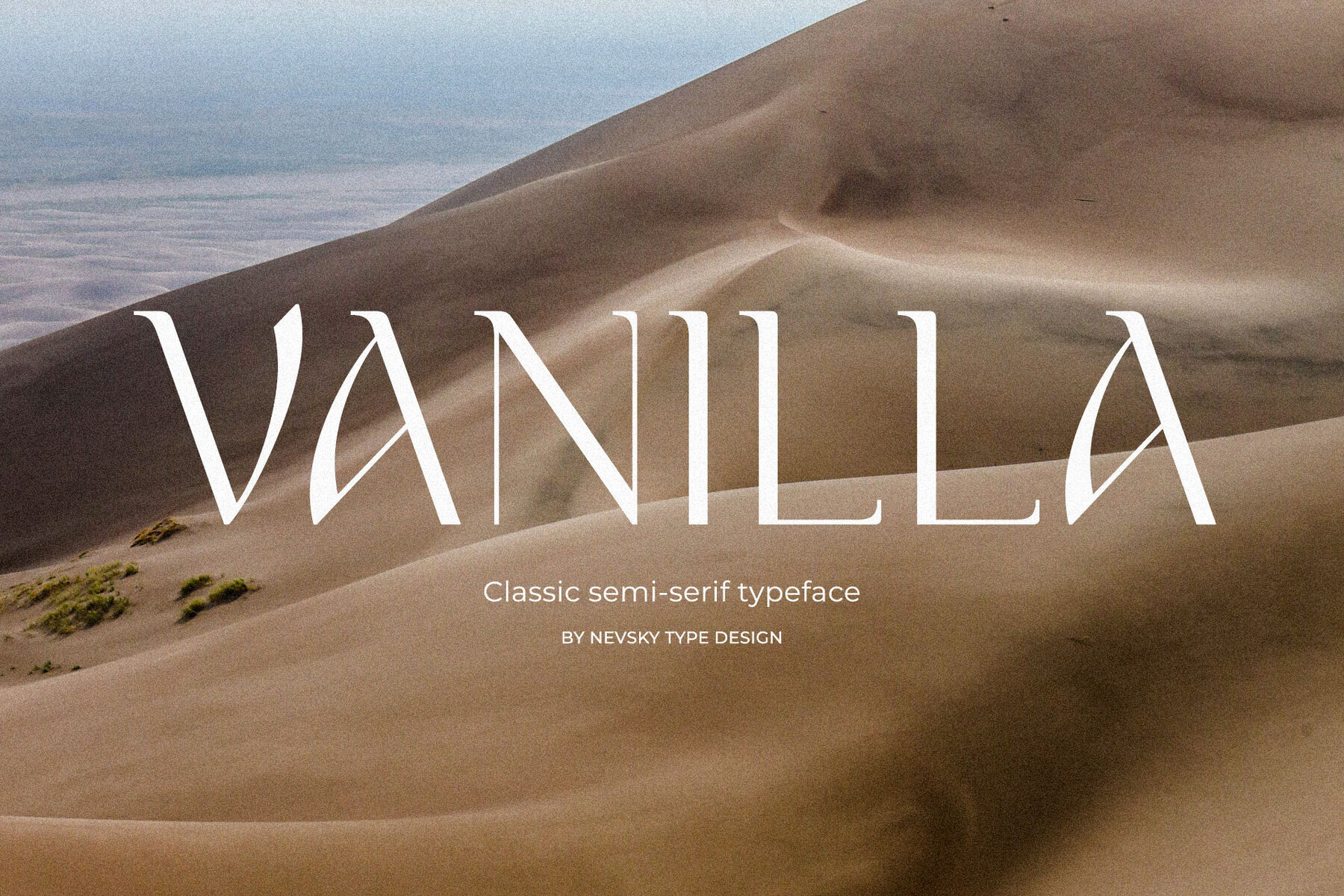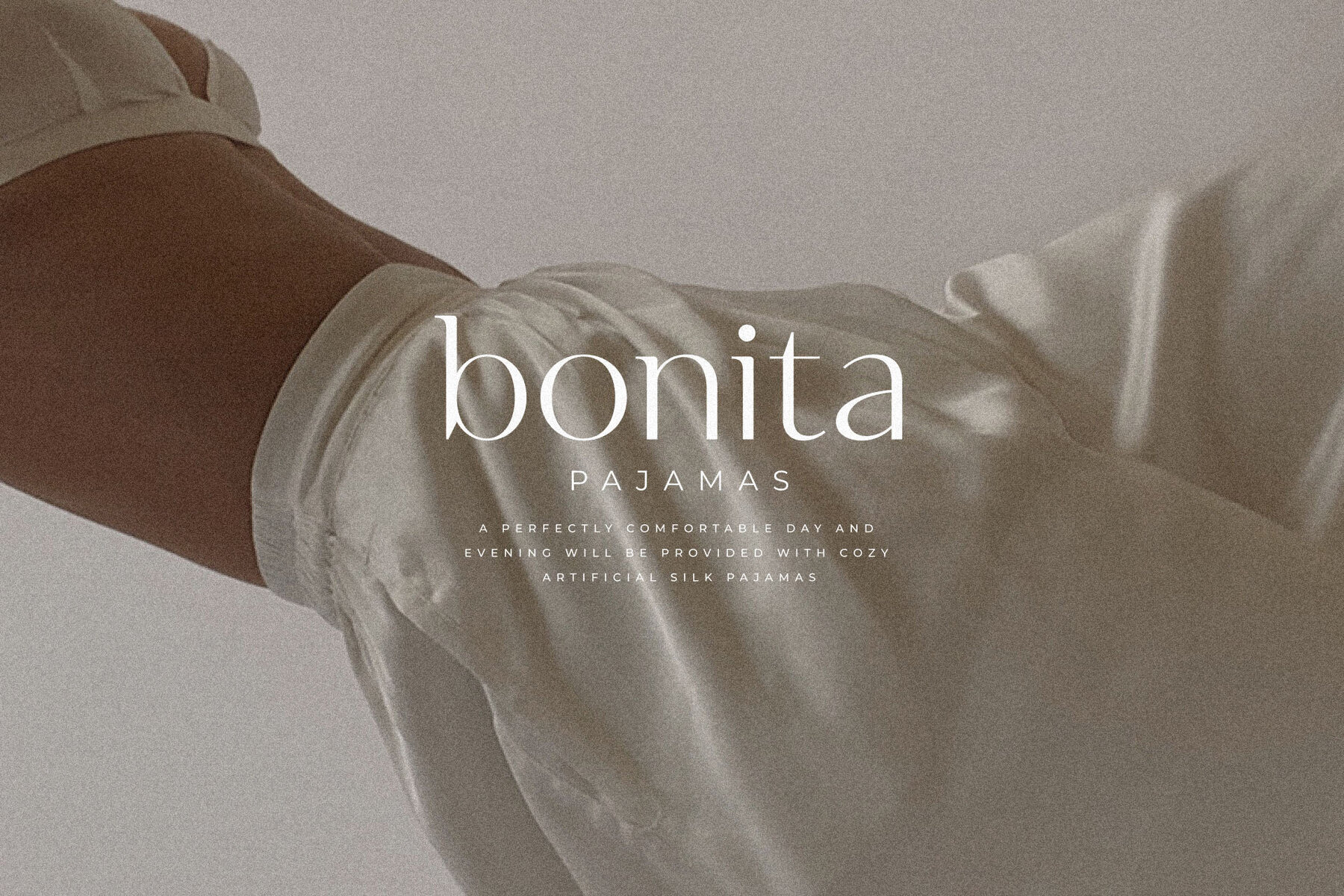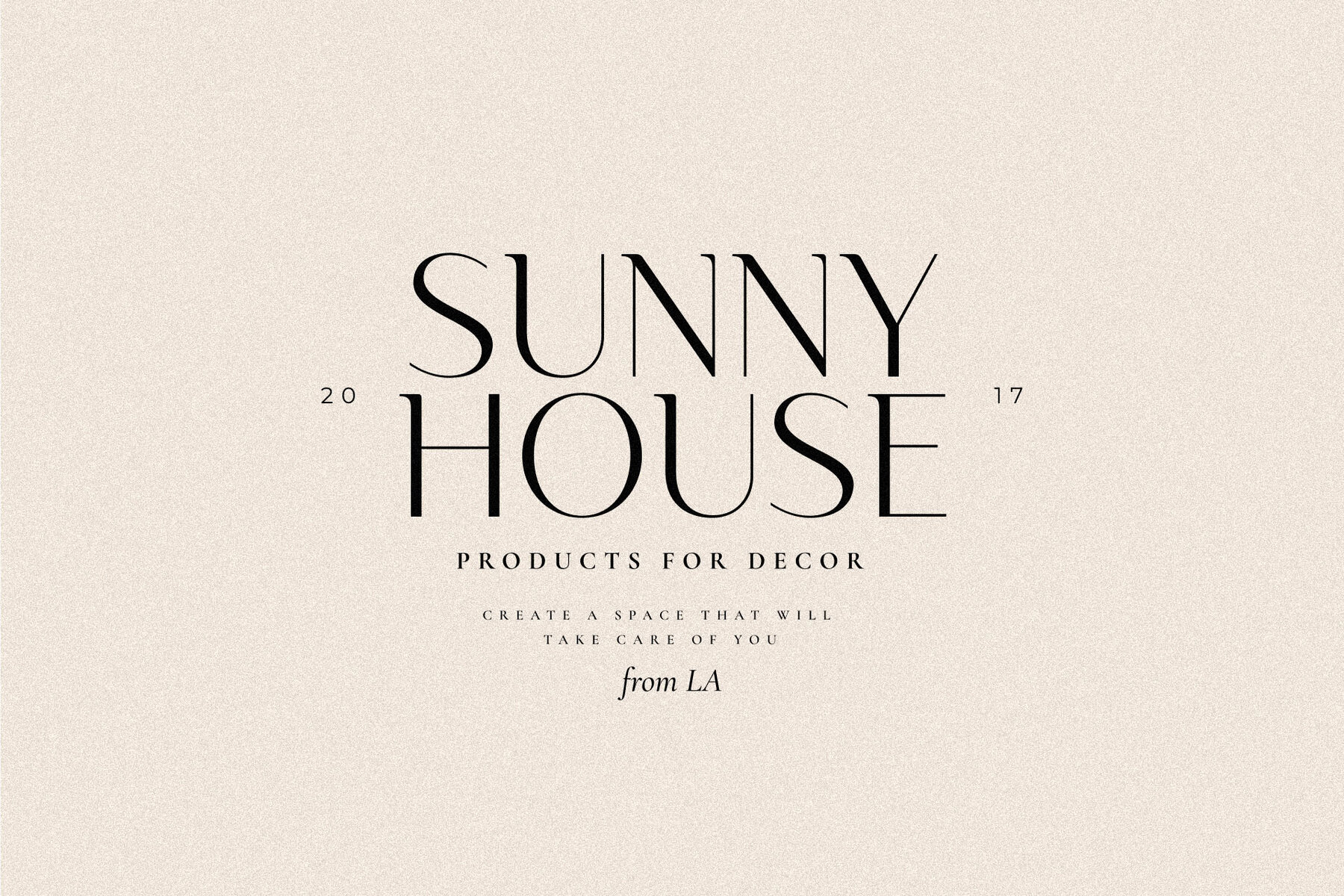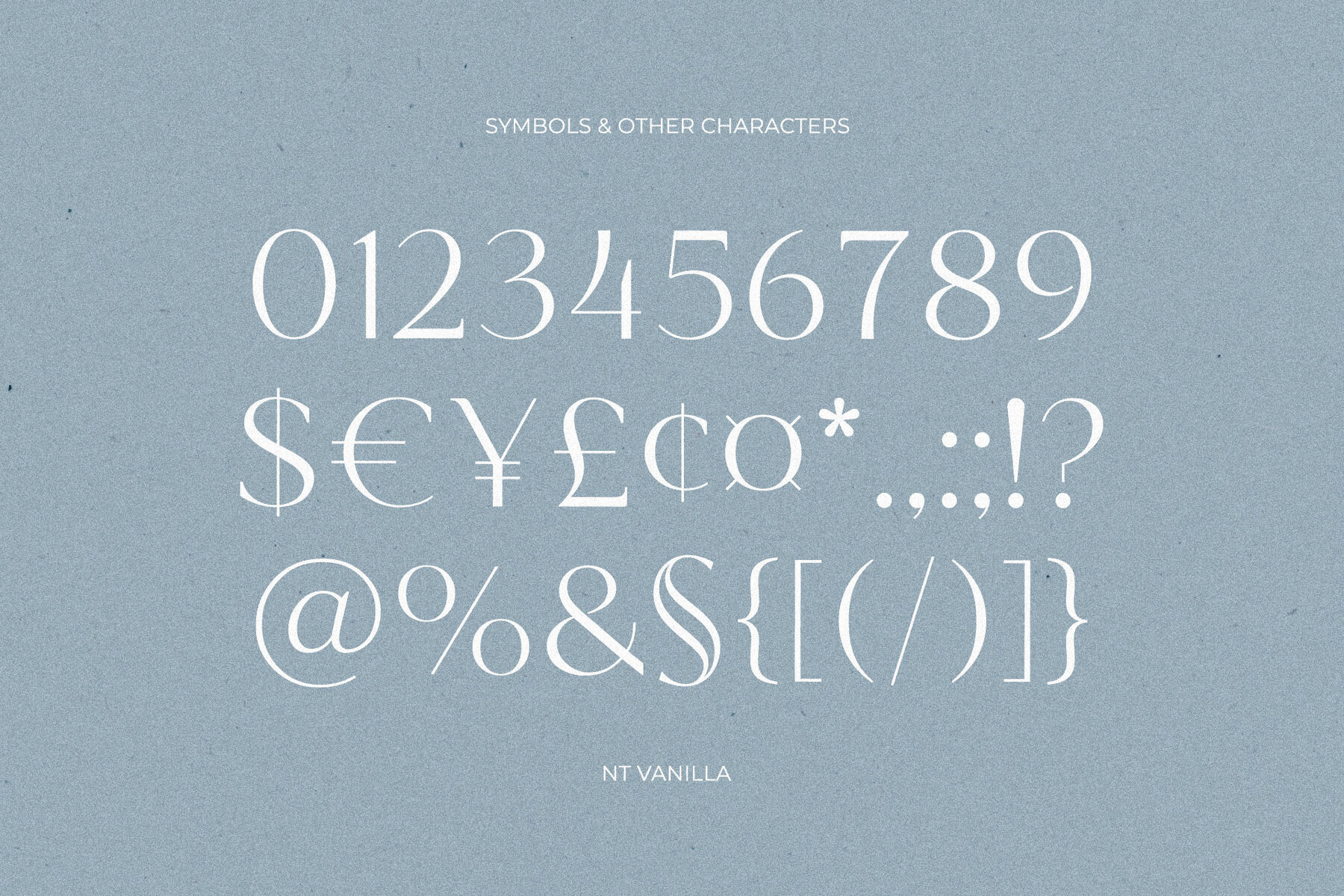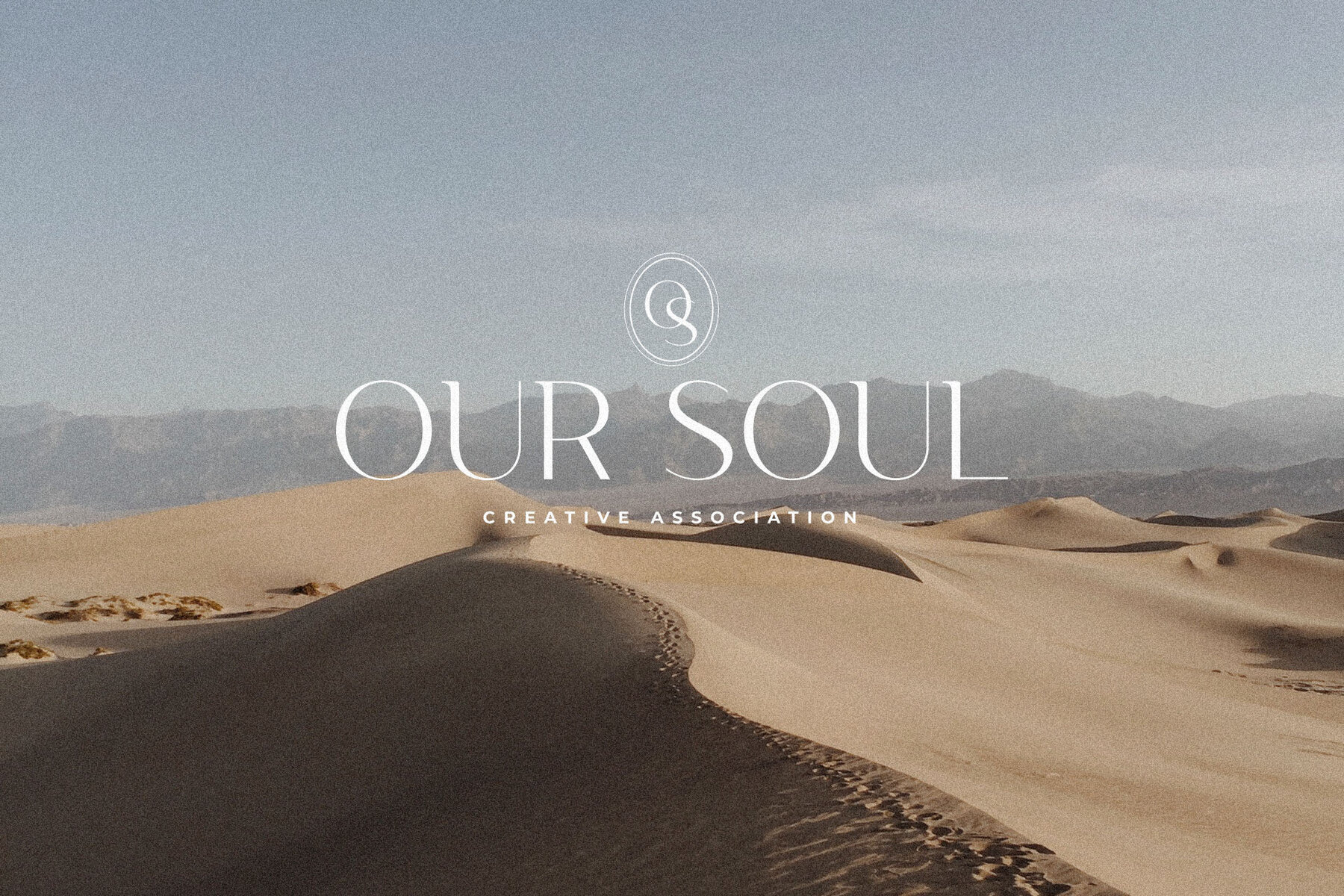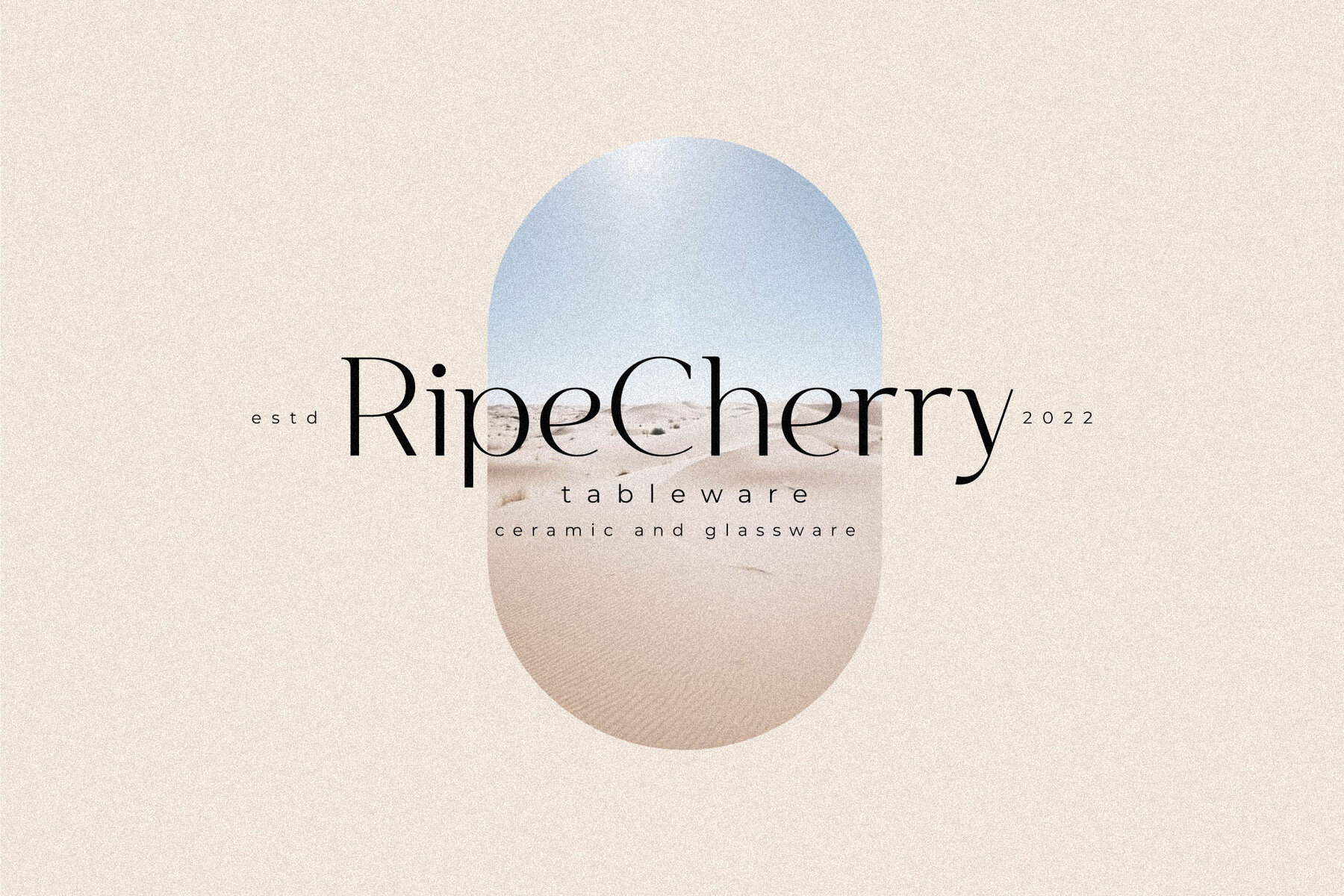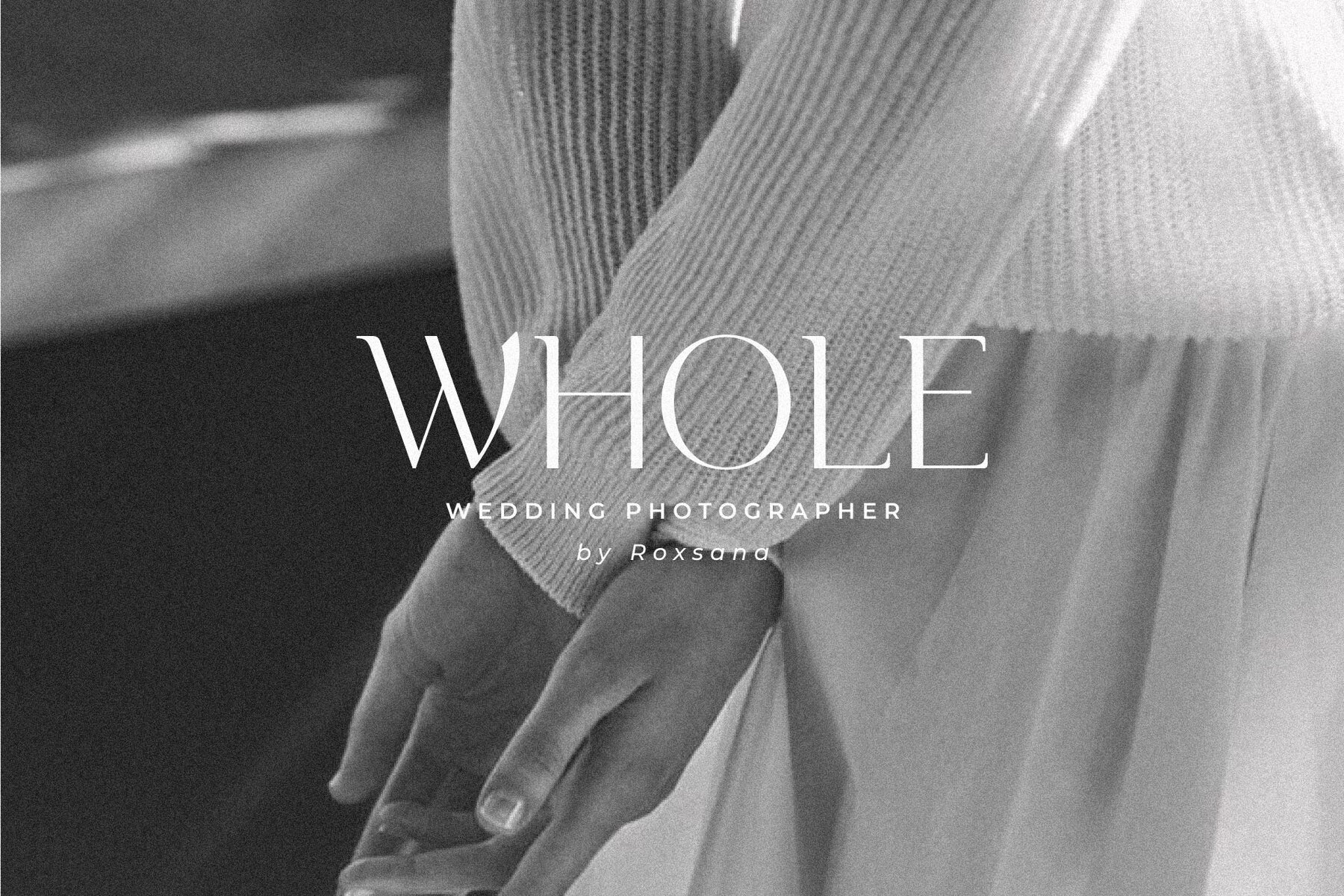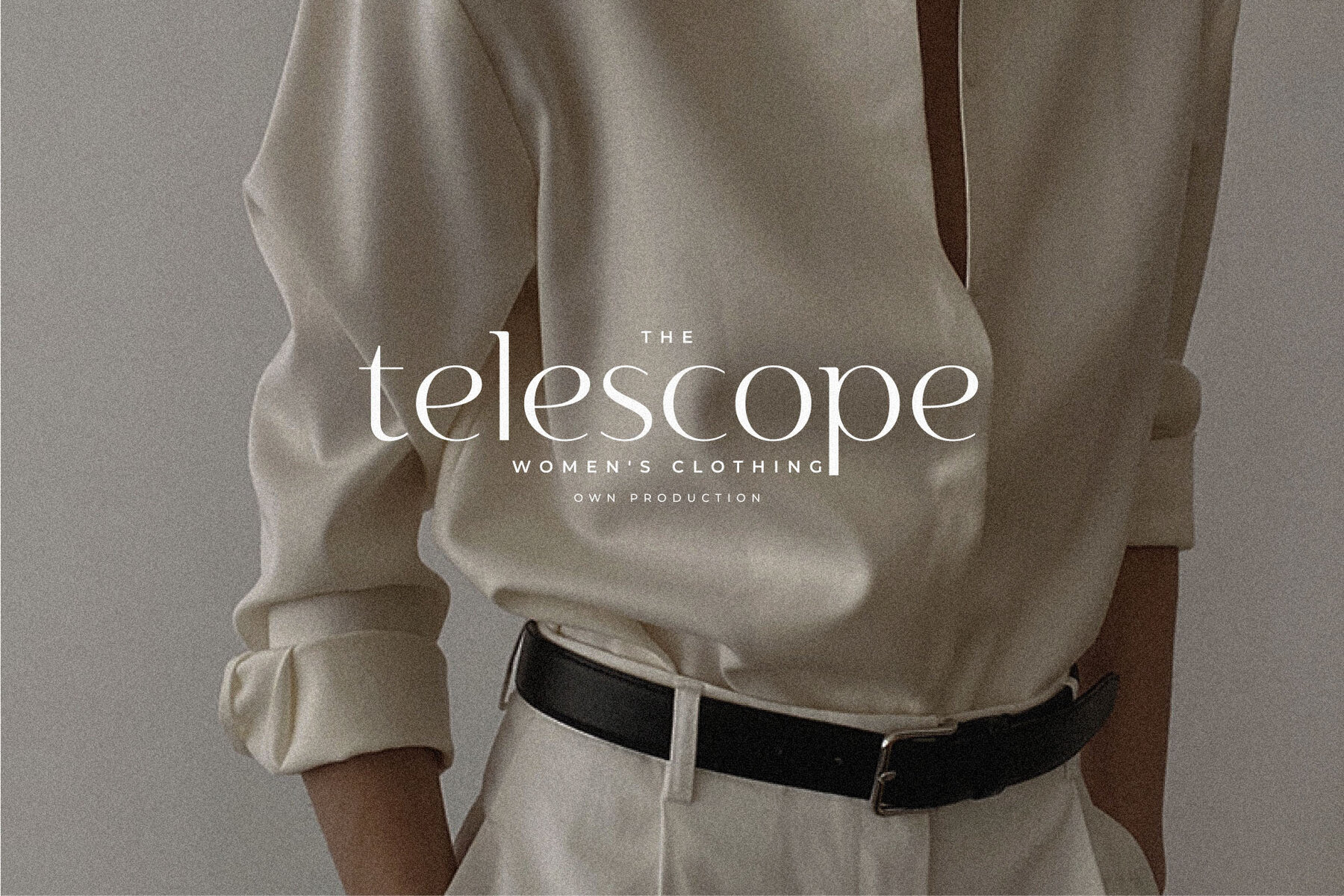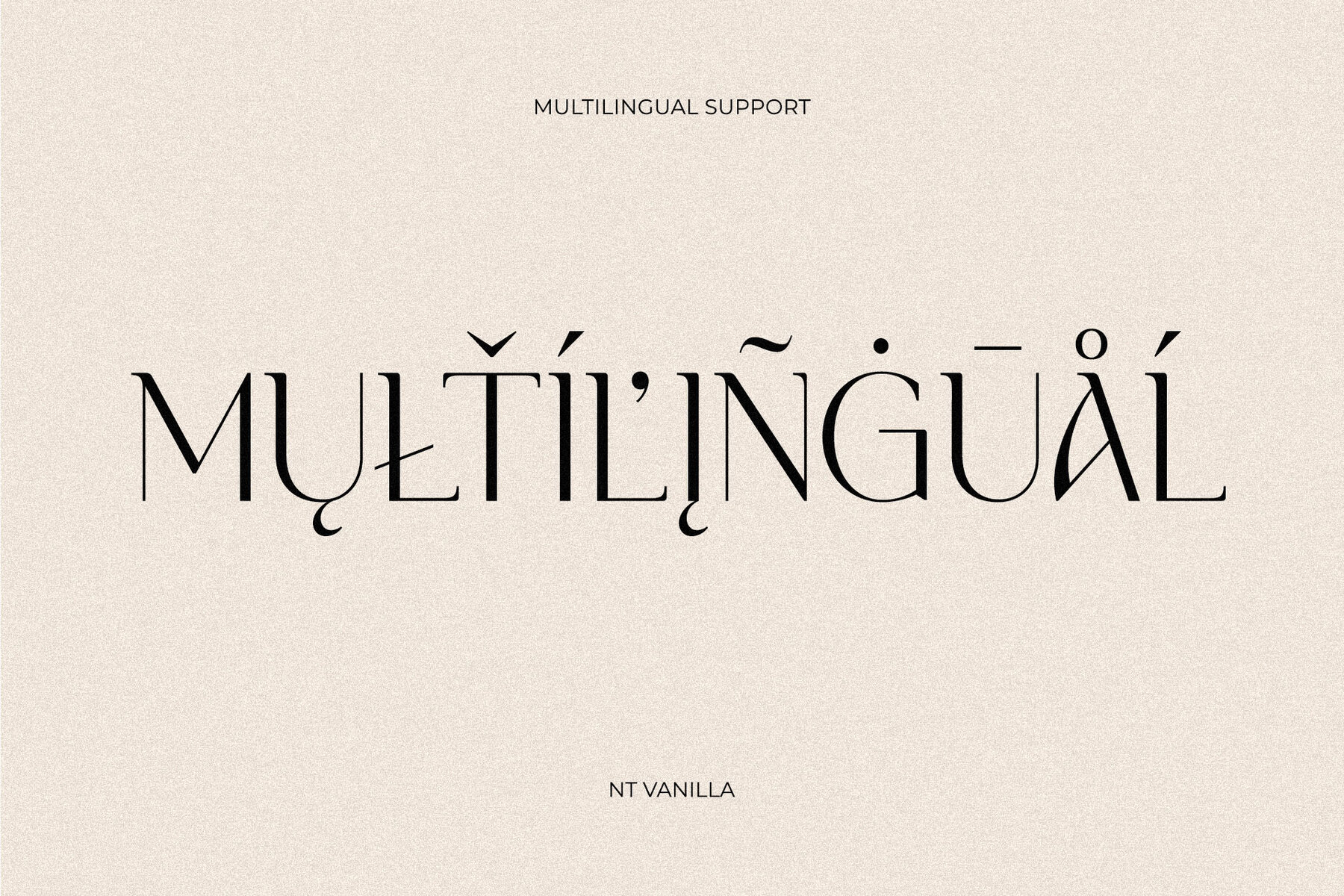
NT Vanilla Font
NT Vanilla
NT Vanilla Alternative
NT Vanilla is a carefully crafted semi-serif font by nevsky.type, designed to cater to a wide range of creative and professional uses. It elegantly balances the traditional elements of serif typefaces with a modern, clean aesthetic to offer a unique visual appeal.NT Vanilla: A Versatile Semi-Serif Font by nevsky.type